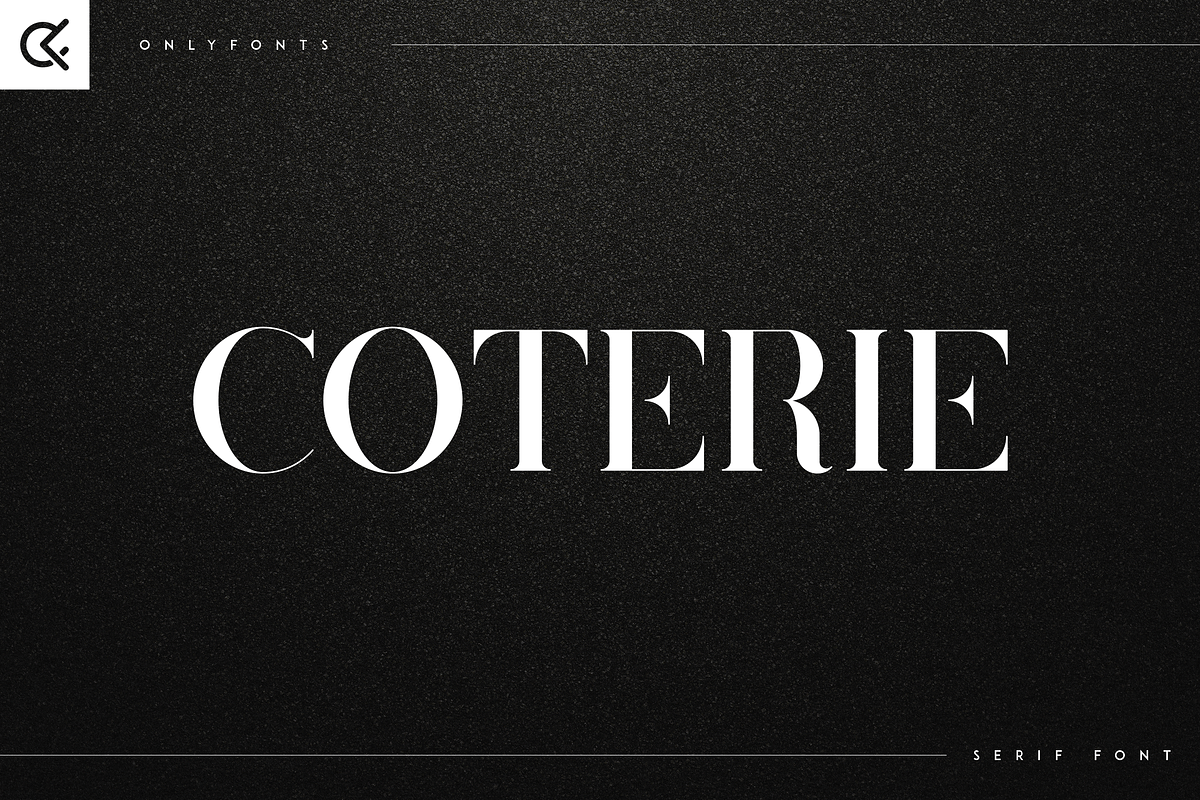
Coterie - Elegant Serif Font Free Download is a refined and sophisticated serif typeface designed to bring a touch of class and luxury to your designs. With its sharp serifs, balanced proportions, and timeless elegance, Coterie is perfect for high-end branding, editorial design, fashion, invitations, and upscale marketing materials.
This versatile serif font works beautifully in both large headlines and small body text, offering both clarity and style. Whether you're designing a chic magazine layout, a classy wedding invitation, or a professional brand identity, Coterie brings sophistication and polish to your typography.